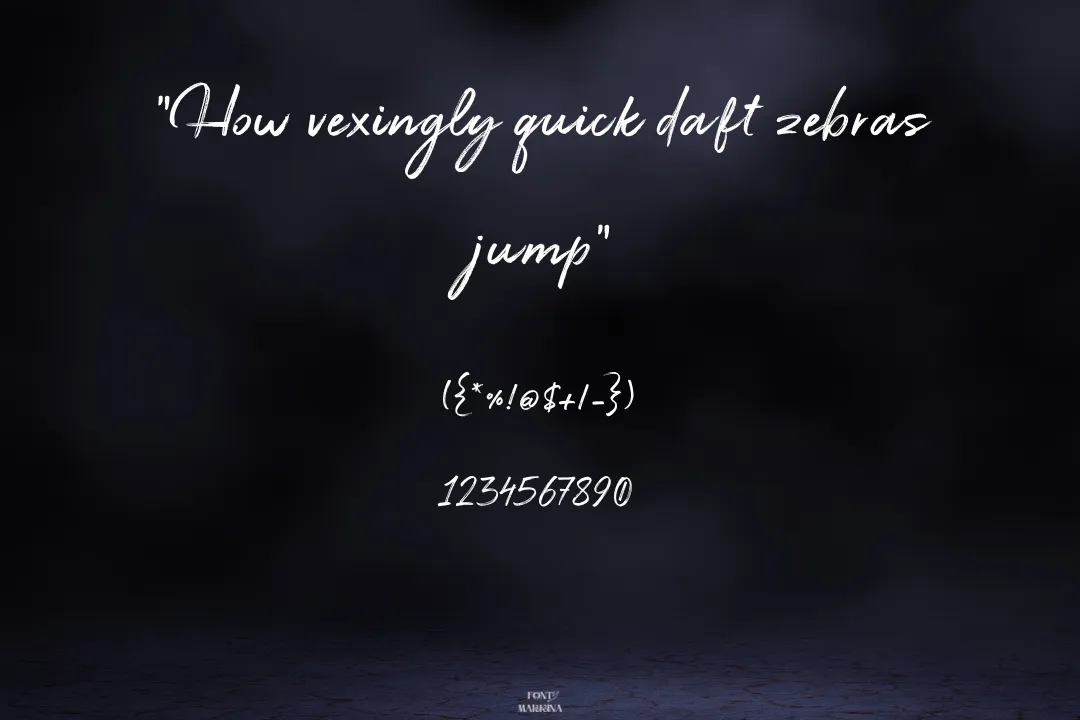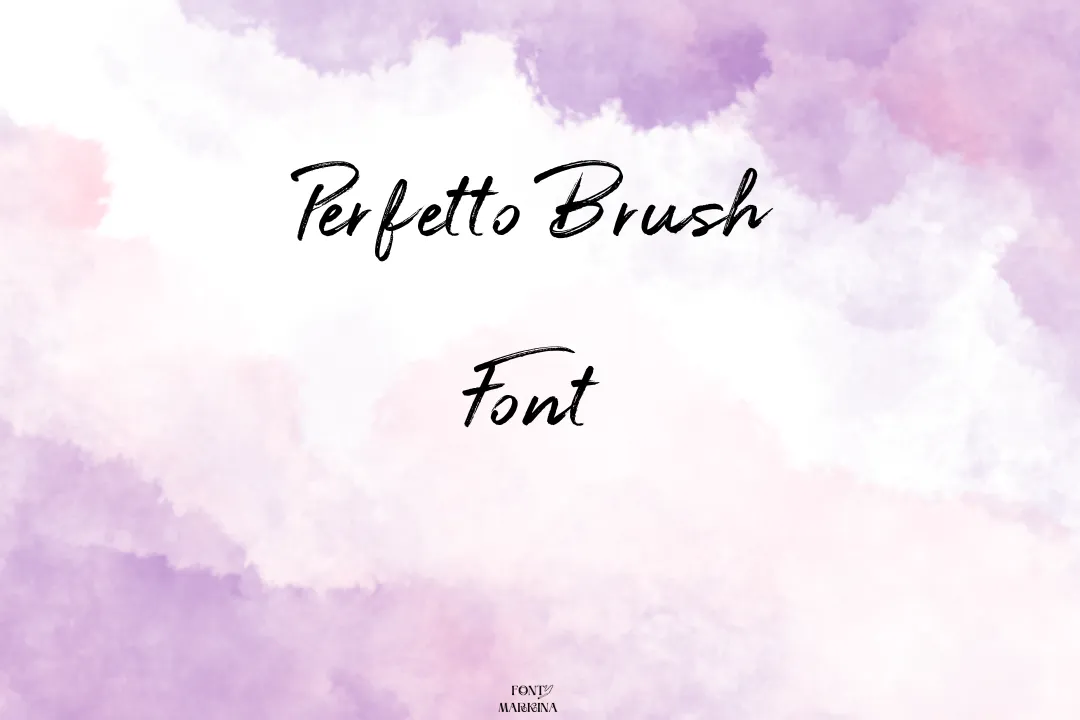
Perfetto Brush font is a type of decorative font that features brush-style letters. It has a hand-drawn appearance and is often used for headlines, logos, and other design elements that need to look creative and attention-grabbing. The letters are generally thick and bold, with a rough texture that mimics the look of a paintbrush.
This stunning font is easy to read and is a popular choice for projects that require a fun and playful look. The Perfetto Brush family was mainly designed by Davide Bassu. It is a Brush font and falls under the decorative Brush font category.
Other features of the Perfetto Brush typeface include Unique brush-style letters, Bold and thick letter forms. The online text generator tool of this texture makes it effective for multiple colorful graphic designs.
Usage of Perfetto Brush Font
Perfetto Brush texture is often used for professional and business purposes because of its decorative and attention-grabbing style. The bold and thick letters make this family perfect for use in headlines and titles, where you want to make a statement and draw attention. It is effective for Adobe Photoshop and Canva also.
The font’s unique brush-style letters can be used to create logos that are memorable and distinctive. The playful and fun appearance of the Perfetto Brush family makes it a great choice for advertising materials, such as signs and flyers.
The font’s decorative style makes it a popular choice for greeting cards and invitations, where you want to convey a personal and friendly message. The bold and attention-grabbing style of Perfetto Brush font can be used on product packaging to make the product stand out on store shelves.
This texture can be used to create eye-catching graphics for social media, such as Facebook posts and Instagram stories. The font’s compatibility with most design software and operating systems makes it a popular choice for web design, where you want to create a creative and memorable website.
| Name | Perfetto Brush Font |
| Designer | Davide Bassu |
| Style | Brush |
What is the type of Perfetto Brush Font?
It is a type of decorative font that features brush-style letters. This texture lies in the classification of the Brush family of fonts.
Who is the main creator of the Perfetto Brush typeface?
Davide Bassu’s brilliant mind designers took the charge of its creations.